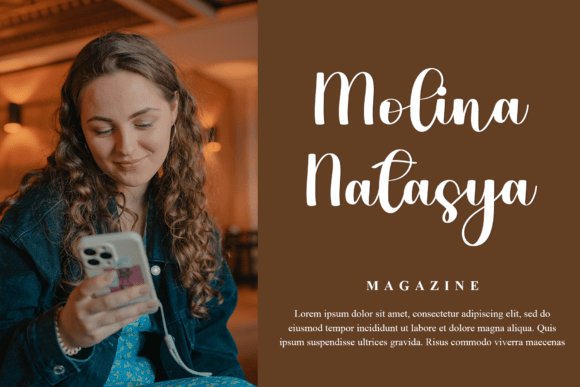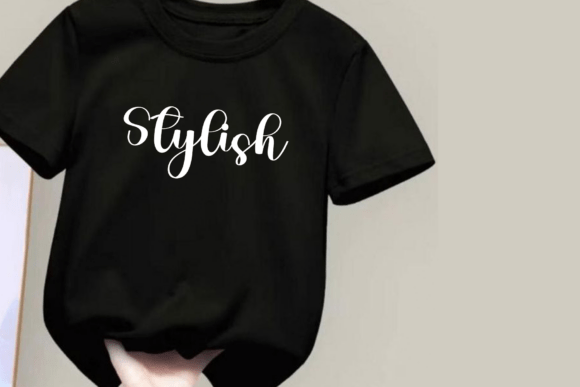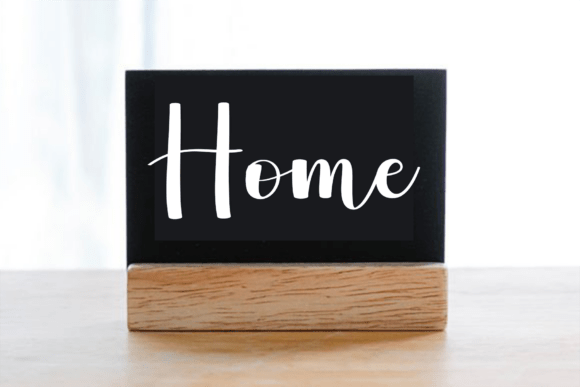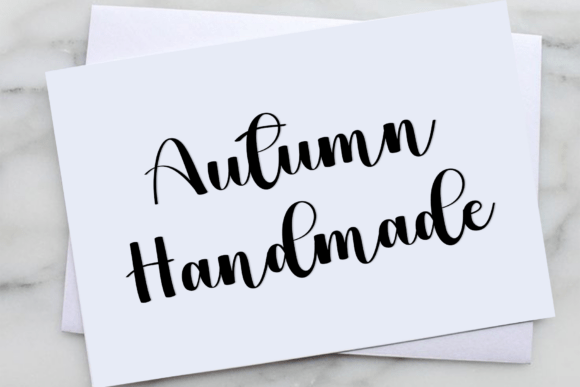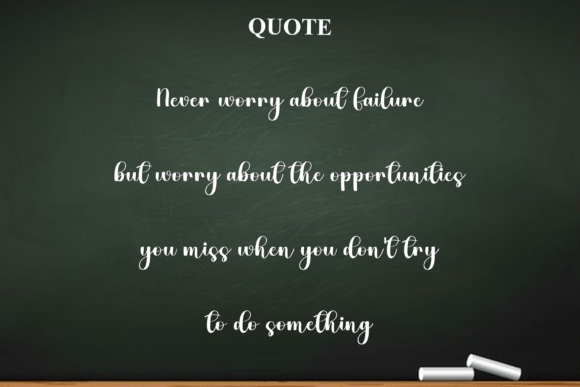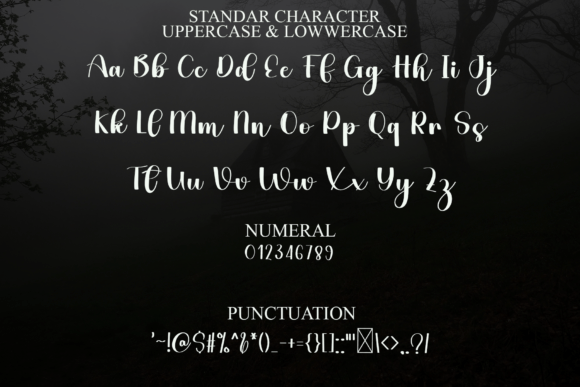
Deck the Halls with Holiday Cheer: Introducing Holiday Font
There’s nothing quite like the feeling of curling up by the fireplace with a warm cup of hot cocoa and a blank page, ready to create something magical. As a designer, you’ve probably experienced that moment where the holiday season’s spirit takes over, and you’re inspired to craft something truly special. That’s where Holiday Font comes in – a festive and merry typeface that captures the essence of the holiday season.
This delightful font is perfect for adding a touch of whimsy to your designs, whether it’s a greeting card, gift tag, or holiday-themed project. With its decorative elements and playful flair, Holiday Font brings a cheerful and nostalgic ambiance to your words. By incorporating this font into your work, you’ll be able to add a touch of magic to your typography, making it truly unforgettable.
Holiday Font Key Features
- Unique Characteristics: This font features a festive and playful design, with intricate details and ornaments that evoke a sense of holiday cheer. It includes a range of ornaments, borders, and swashes to add a touch of elegance and sophistication.
Holiday Font Review
As a designer, I was excited to dive into the Holiday Font, a festive font perfect for any holiday-themed project. Here’s my honest take:
- Unique, playful feel: The Holiday Font brings a fun and whimsical vibe to any design, making it perfect for holiday cards, posters, and social media graphics.
- Good legibility: Despite its decorative nature, the font is still easy to read, even in smaller sizes.
- Wide character set: The font includes a wide range of characters, including punctuation, numbers, and special symbols.
- Limited style options: While the font is great for holiday-themed projects, it may not be as versatile for other types of designs.
- Not ideal for body text: Due to its decorative nature, the font may not be the best choice for large blocks of body text.
Overall, the Holiday Font is a fun and festive addition to any designer’s toolkit. While it may have some limitations, its unique feel and good legibility make it a great choice for holiday-themed projects. With a little creativity, you can use it to create some truly eye-catching designs.
Tips for Getting the Most Out of the Holiday Font
To get the most out of the Holiday Font, consider the following tips:
- Use the font in conjunction with other festive graphics and images.
- Use the font to add a personal touch to your designs.
The Holiday Font is commonly used in:
- Christmas and New Year’s cards and invitations.
- Holiday-themed posters and flyers.
- Seasonal social media graphics and ads.